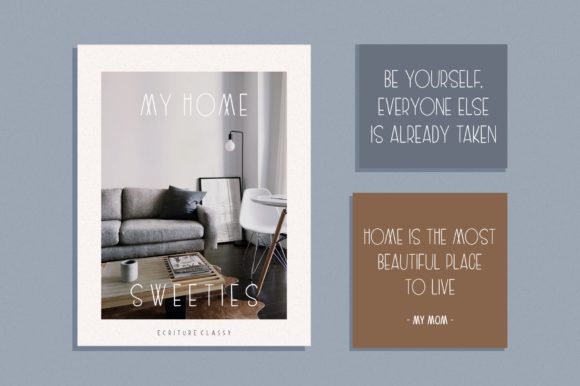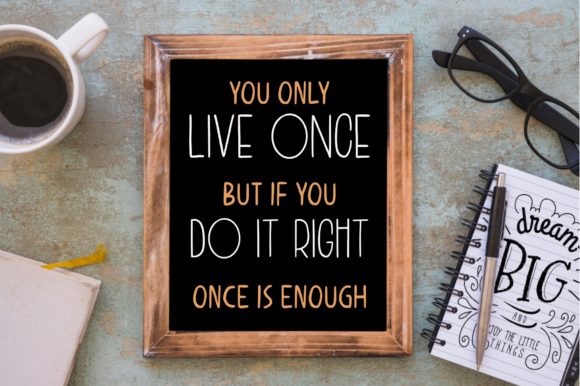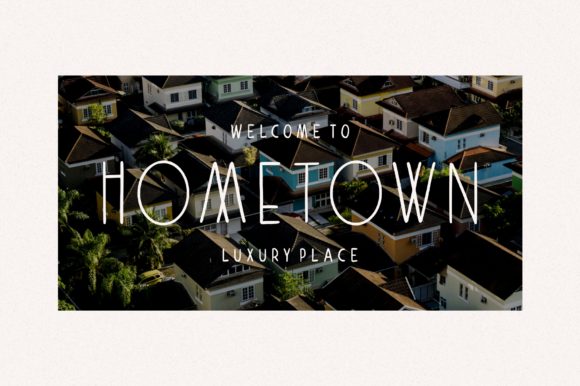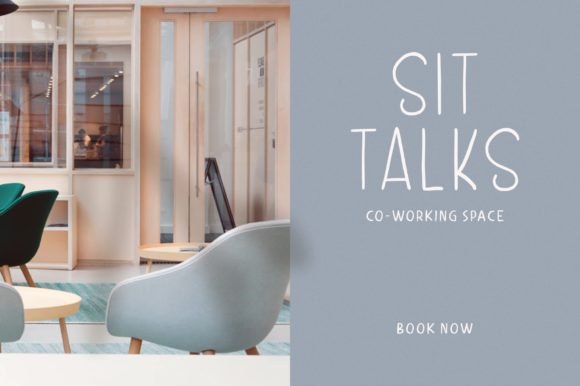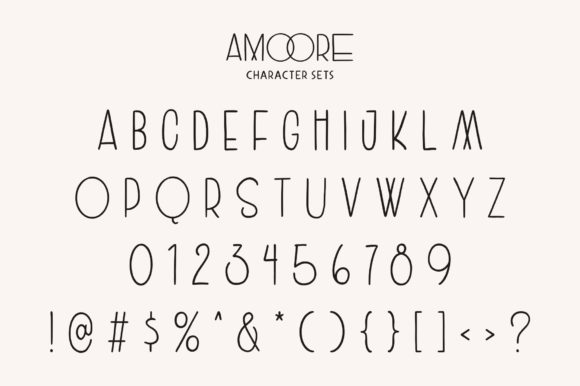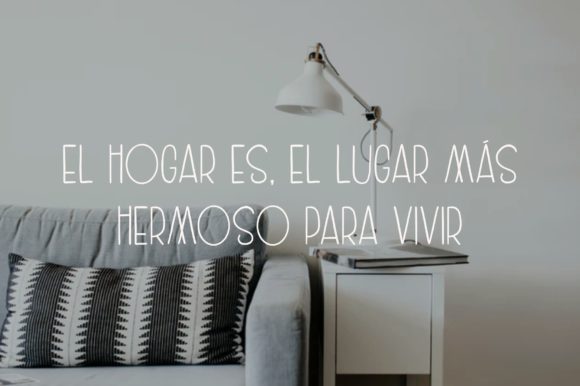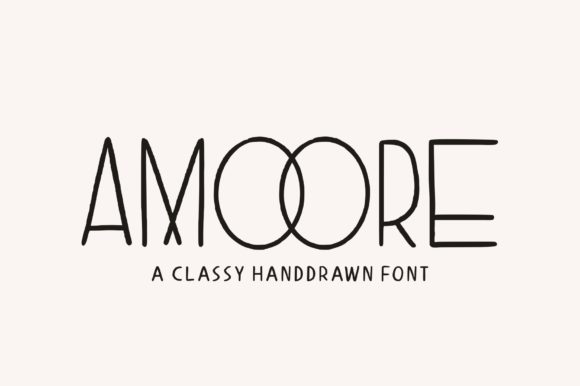
Amoore Font: Elevate Your Designs with a Minimal and Neat Sans Serif
In the world of typography, fonts play a pivotal role in making or breaking the visual appeal of a design. For designers and crafters looking for that perfect typeface to elevate their projects, Amoore Font is an excellent choice. Described as a minimal and neat sans serif font, Amoore is versatile and can easily be matched to an incredibly large set of projects. Its simplicity and elegance make it an ideal addition to your creative toolkit, allowing your ideas to stand out with clarity and sophistication.
The Characteristics of Amoore Font
Amoore Font boasts a clean and minimalist design, which is characteristic of sans serif fonts. However, what sets it apart is its exceptional legibility and the subtle elegance it brings to any project. The font’s minimalistic approach ensures that it remains unobtrusive, allowing the content to take center stage while still providing a visually appealing framework. This makes Amoore incredibly versatile, suitable for a wide range of applications from digital interfaces to print materials.
Versatility in Design Projects
The true strength of Amoore Font lies in its versatility. Whether you’re working on a modern website, a mobile app, a branding project, or even a craft, Amoore can seamlessly integrate and enhance your design. Its neat and clean lines ensure that it pairs well with both minimalist and more complex compositions. For digital projects, its clear and readable design ensures a great user experience, while for print materials, it offers a professional and sleek look.
Why Choose Amoore Font?
There are several reasons why designers and crafters should consider Amoore Font for their projects:
- Legibility: The font’s design prioritizes readability, making it perfect for body text, headings, and any content that needs to be easily read.
- Flexibility: Amoore can be used in a variety of contexts, from digital media to print, and in various sizes without losing its appeal.
- Elegance: Despite its minimalist design, Amoore brings a level of sophistication and elegance to designs, making them more engaging.
- Easy to Pair: The neutral design of Amoore makes it easy to pair with other fonts, allowing for creative and harmonious typography combinations.
Using Amoore in Your Designs
Incorporating Amoore Font into your designs is straightforward. Here are a few tips to make the most out of this versatile font:
- Experiment with Sizes: Amoore’s clear design ensures it looks great in various sizes, from large headings to smaller body text.
- Play with Colors: While Amoore works well in black and white, experimenting with different colors can help match it perfectly to your brand or project’s aesthetic.
- Mix and Match: Don’t be afraid to use Amoore in combination with other fonts. Its neutral base makes for easy pairing and can add depth to your typography.
Amoore Font is a valuable addition to any designer’s or crafter’s toolkit. Its minimal and neat sans serif design offers the perfect blend of elegance, versatility, and legibility. Whether you’re working on a digital project, a print material, or a craft, Amoore can help elevate your design, making it stand out with a clean and sophisticated look. By incorporating Amoore into your creative process, you’re not just choosing a font; you’re choosing a partner that can help bring your ideas to life in the best possible way.